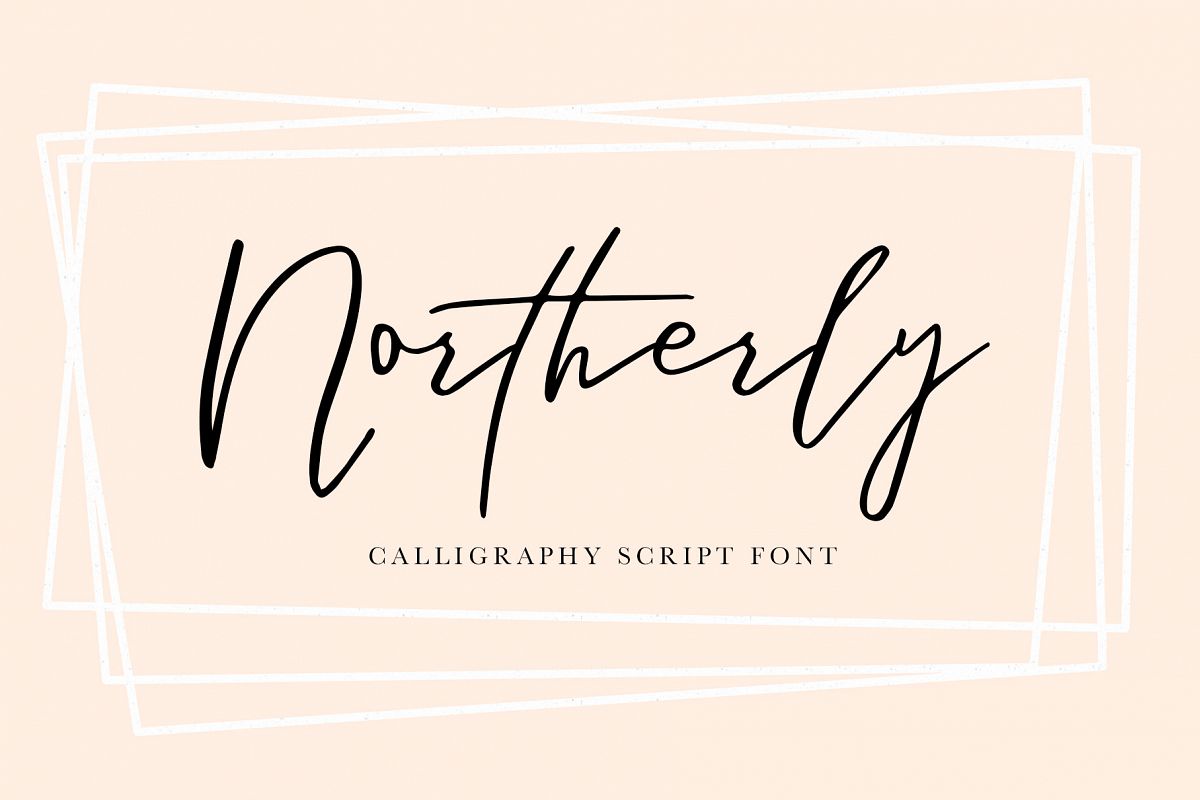
Northerly
Northerly-Script
I am so excited to introduce this new font to you! Northerly is a relaxed script font that will add appeal to any project it is used in! It was simple and fun to create preview images because this font is just so versatile. I have had a font like this in mind for quite some time, but it took some tweaking in my lettering to be able to have the outcome that I've been envisioning! As I was designing it, I realized how perfect it would pair with some geometric frames, for monograms, and as an accent. I love this pairing! I hope you will find this font and these add-ons a fun addition to your font collection!